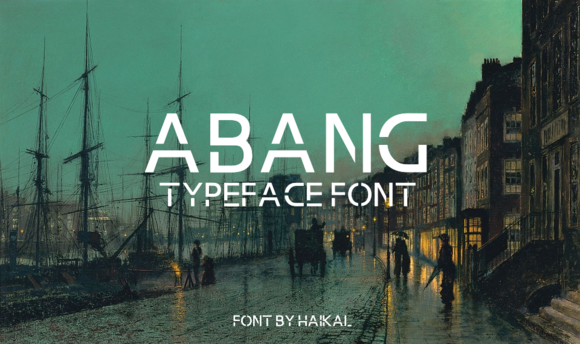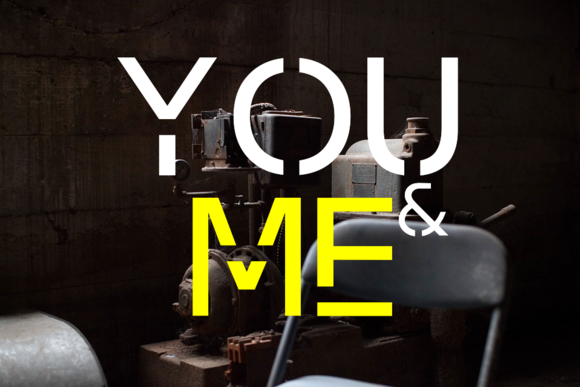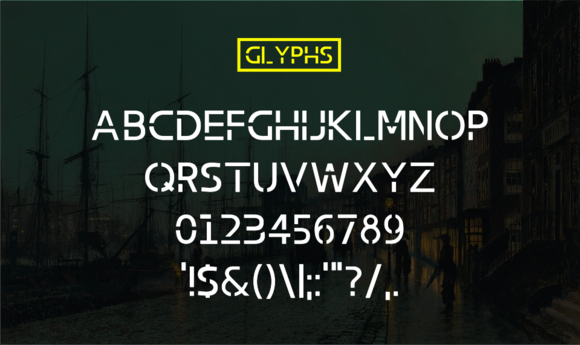
Introducing Abang Font: A Unique Vintage Sans Serif for Modern Designs
In the world of typography, fonts play a crucial role in conveying the tone and personality of a brand or design. For designers and crafters, finding the perfect font can be a daunting task, especially when looking for something that stands out from the crowd. This is where Abang Font comes in – a very clean, vintage sans serif font that features a unique twist. In this article, we’ll dive into the world of Abang Font, exploring its characteristics, uses, and benefits for designers and crafters.
The Story Behind Abang Font
Abang Font is a sans serif font that boasts a clean and vintage aesthetic. What sets it apart from other fonts in its category is the small interruption in every glyph, giving it a distinctive touch. This subtle detail adds a layer of uniqueness to the font, making it perfect for designers looking to add a touch of personality to their work. The font’s design is inspired by classic sans serif fonts, but with a modern twist that makes it suitable for a wide range of applications.
Key Features of Abang Font
- Clean and Vintage Aesthetic: Abang Font features a clean and minimalist design, reminiscent of classic sans serif fonts from the past.
- Unique Interruption: Every glyph in the font features a small interruption, giving it a distinctive touch that sets it apart from other fonts.
- Vintage Feel: Despite its modern design, Abang Font has a vintage feel that makes it perfect for designs that require a touch of nostalgia.
- Highly Versatile: The font is suitable for a wide range of applications, from branding and advertising to packaging and digital design.
Uses of Abang Font
Abang Font is a highly versatile font that can be used in a variety of design projects. Here are some examples:
- Branding and Identity: Use Abang Font to create a unique and memorable brand identity that stands out from the crowd.
- Advertising and Marketing: The font’s clean and vintage aesthetic makes it perfect for advertising and marketing materials, such as posters, flyers, and brochures.
- Packaging Design: Abang Font is a great choice for packaging design, adding a touch of personality and whimsy to product labels and packaging.
- Digital Design: The font is also suitable for digital design, including website headers, social media graphics, and digital advertising.
Benefits of Using Abang Font
So why choose Abang Font for your design projects? Here are some benefits:
- Unique and Memorable: Abang Font’s distinctive design makes it a great choice for designers looking to create a unique and memorable brand identity.
- Highly Versatile: The font’s versatility makes it suitable for a wide range of applications, from print to digital design.
- Easy to Read: Despite its unique design, Abang Font is highly legible and easy to read, making it perfect for body text and headlines.
- Time-Saving: With Abang Font, designers can save time and effort in creating custom fonts or searching for the perfect font for their projects.
In conclusion, Abang Font is a unique and versatile font that offers a fresh take on traditional sans serif fonts. Its clean and vintage aesthetic, combined with its distinctive interruption, make it a great choice for designers and crafters looking to add a touch of personality to their work. Whether you’re working on a branding project, advertising campaign, or packaging design, Abang Font is a great option to consider.